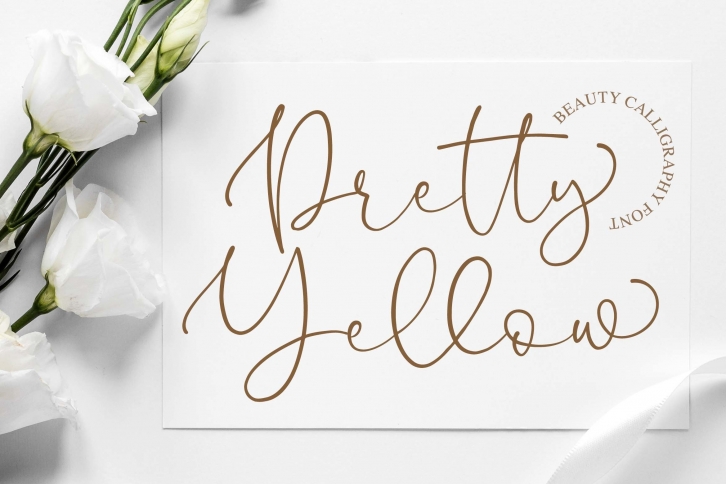
Pretty Yellow Beauty Calligraphy Font Download
Pretty Yellow Beauty Calligraphy is a great font that was designed by Blankids. Imagine the amount of combinations you can create using this font! The archive is 4.26 MB and it was released on June 16, 2020. Pretty Yellow Beauty Calligraphy looks beautiful on wedding invitations, greeting cards, logos, posters, labels, t-shirt designs, logos, business cards and is perfect for use in ink or watercolor works, fashion, magazines, packaging and food menus, children's books and more!